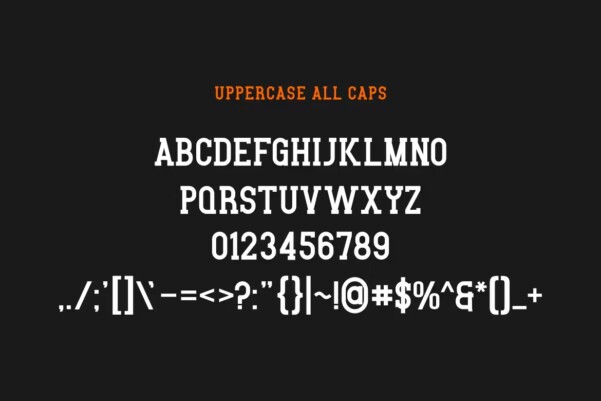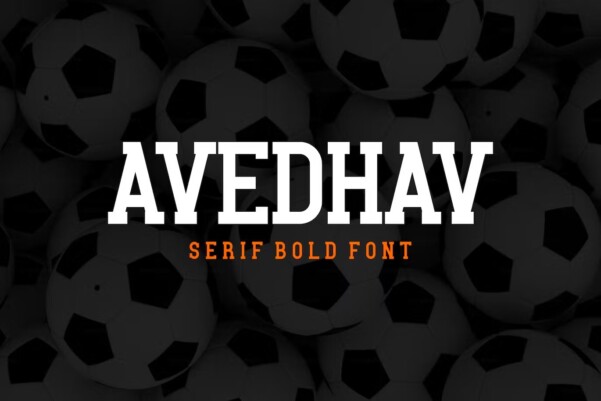
Avedhav Fonts
Adventure Font is a bold and authentic display font. The font is suitable for any branding project like logo, t-shirt printing, esport, and many more. Outstanding in a wide range of contexts.